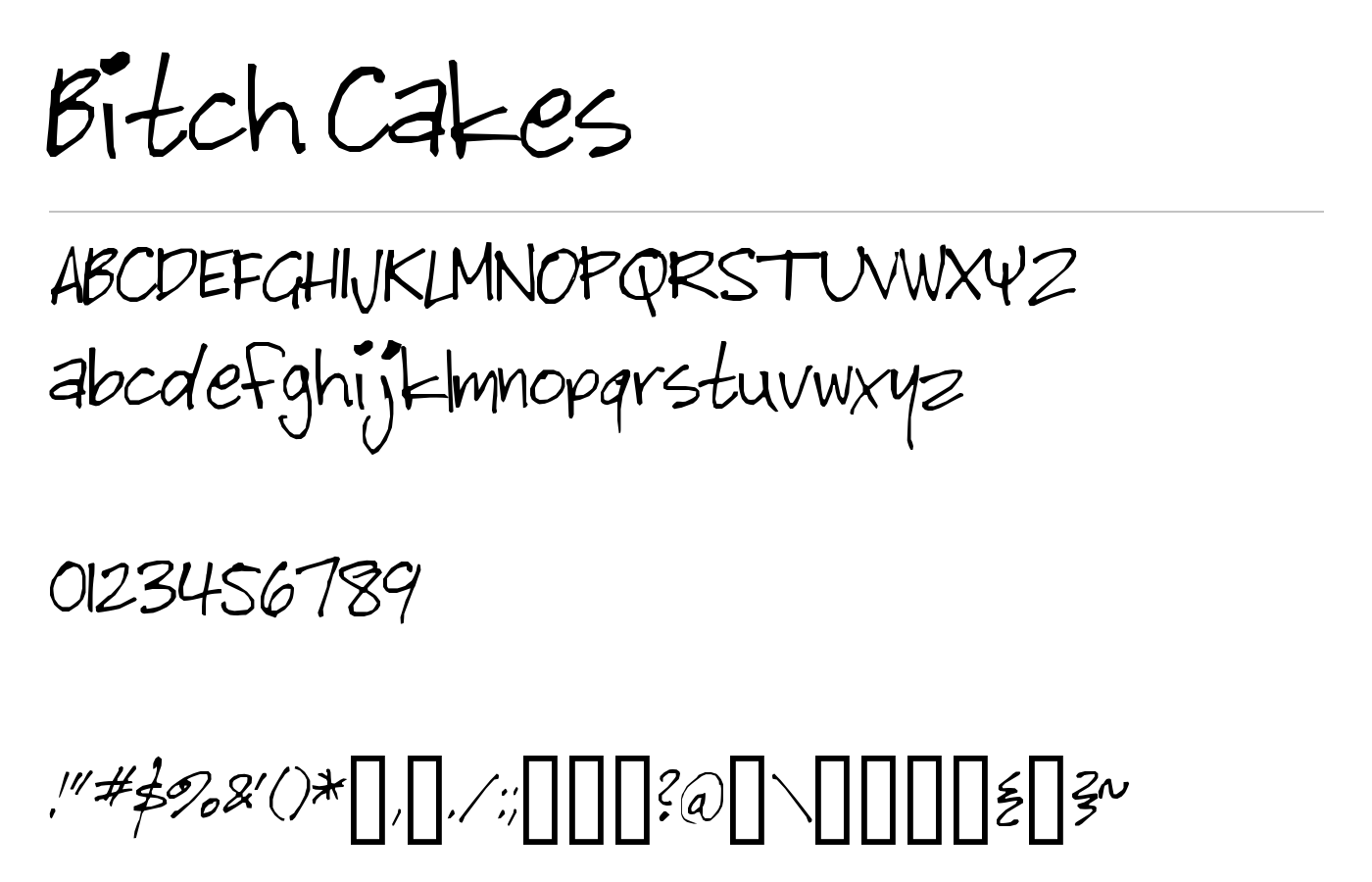
Bitch Cakes is a casual, hand-drawn sans serif font with a playful and slightly edgy personality. Its irregular, narrow letterforms and lively strokes give it an informal, personal feel, making it perfect for creative projects, youth-focused branding, and fun editorial designs. This font works well in headlines and display uses where a quirky and approachable style is desired.
Bitch Cakes Font
About Bitch Cakes Font